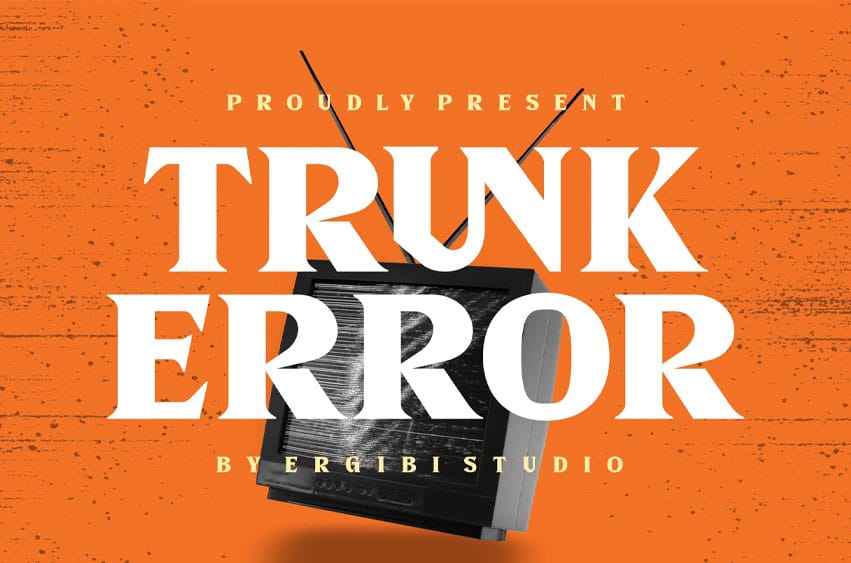
Trunk Error Font is a modern serif typeface that merges classic elegance with contemporary edge. Featuring sharp serifs, refined contrast, and unexpected cuts, this font brings a unique blend of tradition and disruption — like a system glitch wrapped in sophistication.
Perfect for branding, editorial layouts, high-fashion logos, and bold typographic statements, Trunk Error delivers both clarity and character. Its distinctive personality makes it stand out in digital and print media alike.